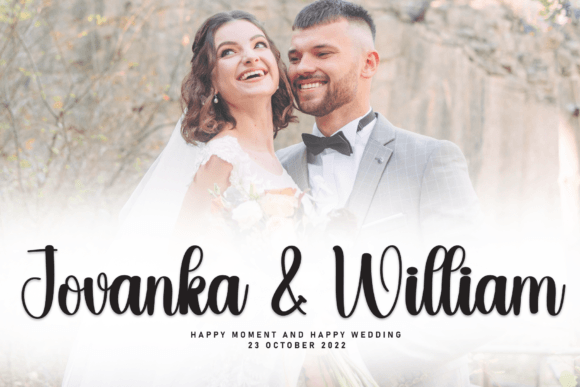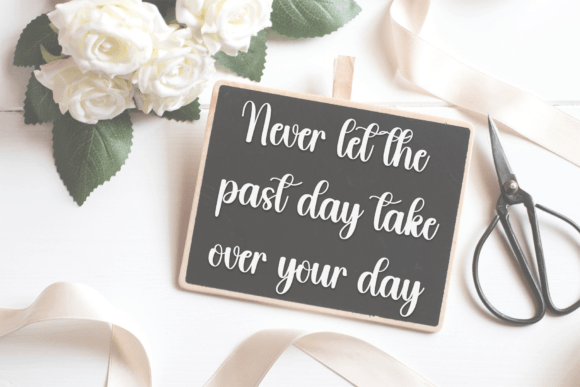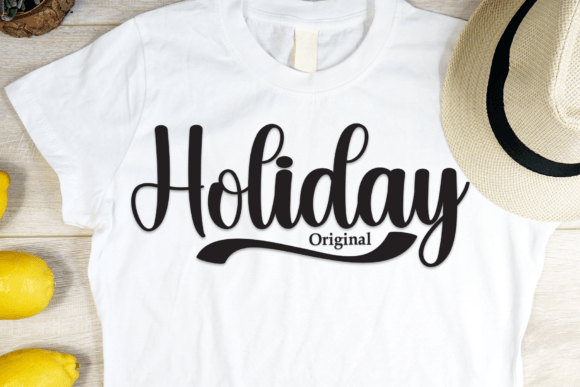
Introduction to Mintsy Font
Mintsy is a sweet and friendly handwritten display font.
Cute and fun, this font is ideal for writing wedding invitations, cards, or any other design that might need a fun touch .